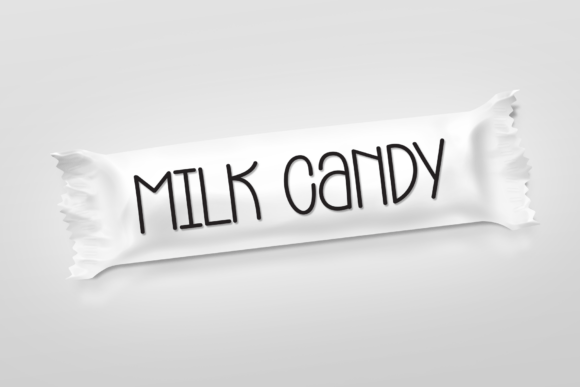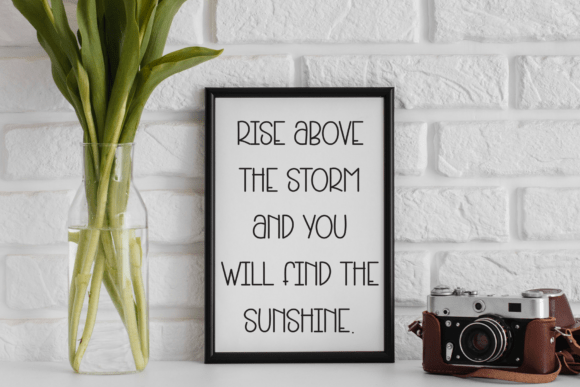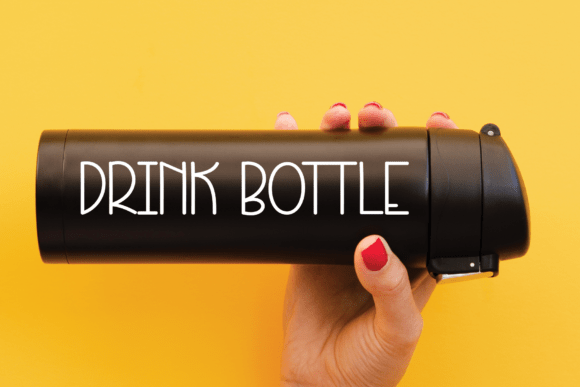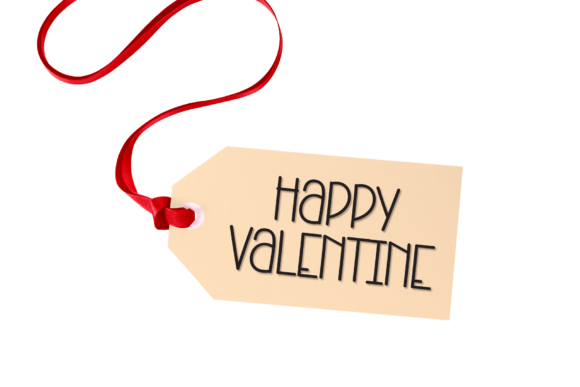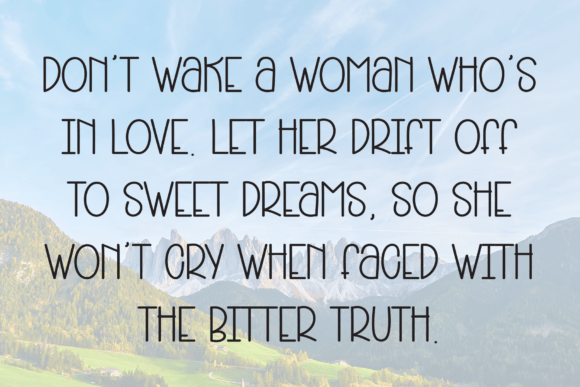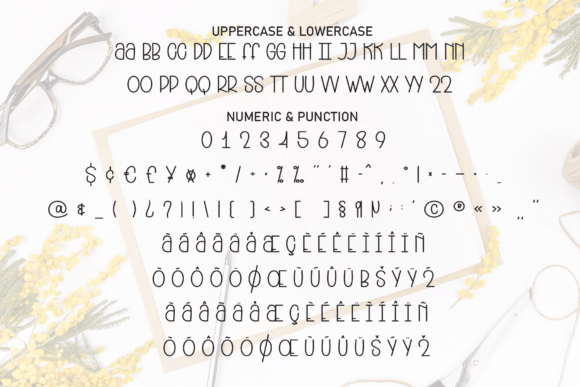
Introducing the Handmade Notebook Font: A Charming Addition to Your Design Arsenal
Immerse yourself in the charming allure of our delightful handwritten typeface, perfect for infusing a touch of sweet familiarity into your design dreams. Cozy and captivating, this font is a perfect companion for wedding invitations, endearing cards or any creative project yearning for a sprinkle of whimsy. Bursting with playful charm, this creation effortlessly elevates any design narrative requiring an element of adorable allure.
The Story Behind the Handmade Notebook Font
Our Handmade Notebook Font is more than just a collection of letters and symbols; it’s an experience. Imagine picking up a warm, freshly baked cookie, or flipping through the pages of a vintage journal – the feeling of comfort and nostalgia that comes with it. That’s what our font aims to bring to your designs. With its unique blend of elegance and playfulness, this font is sure to capture the hearts of your audience and leave a lasting impression.
Whether you’re a designer, crafty DIY enthusiast, or a small business owner, our Handmade Notebook Font is an excellent addition to your creative toolkit. Here are some ideas on how you can use this beautiful font:
- Wedding Invitations: Add a touch of romance and whimsy to your wedding stationery with our charming font. It’s perfect for save-the-date cards, wedding programs, and thank-you notes.
- Stationery and Cards: Create adorable birthday cards, thank-you notes, or greeting cards that will make your loved ones feel special.
- Branding and Packaging: Give your brand a personal touch with our handmade font. Use it for product labels, packaging, or marketing materials to create a unique and memorable brand identity.
- Digital Products: Add a touch of personality to your digital products, such as printable art, planners, or journals.
What Makes Our Handmade Notebook Font So Special?
Our font is carefully crafted to bring a sense of warmth and personality to your designs. Here are some features that make it stand out:
- Unique Character Set: Our font includes a range of characters, from letters and numbers to punctuation marks and special symbols.
- Playful and Elegant: The font strikes the perfect balance between playfulness and elegance, making it suitable for a wide range of design projects.
- Easy to Read: The font is designed to be easy to read, even at small sizes, making it perfect for body text or headings.
- Scalable: Our font is designed to look great at any size, from large headings to small footnotes.
Tips for Using the Handmade Notebook Font
Here are some tips to help you get the most out of our Handmade Notebook Font:
- Pair it with Other Fonts: Experiment with pairing our font with other fonts to create a unique and visually appealing design.
- Use it for Headings and Titles: Our font is perfect for headings and titles, but you can also use it for body text for a more personal touch.
- Don’t Be Afraid to Get Creative: Our font is designed to be versatile, so don’t be afraid to experiment and try new things.